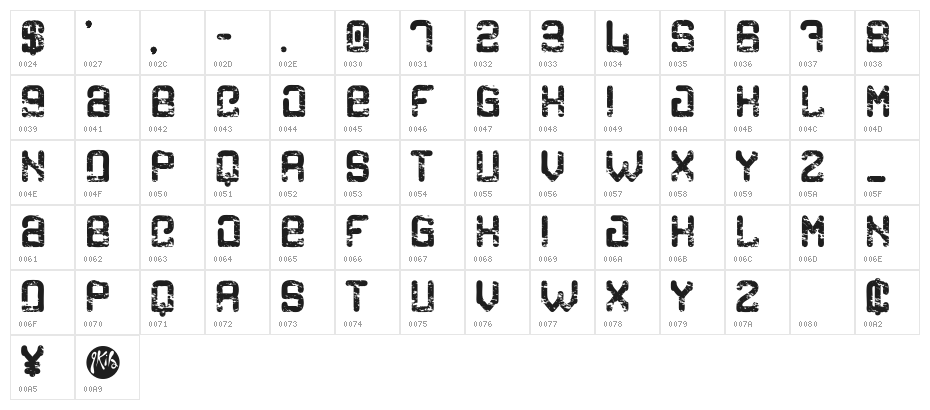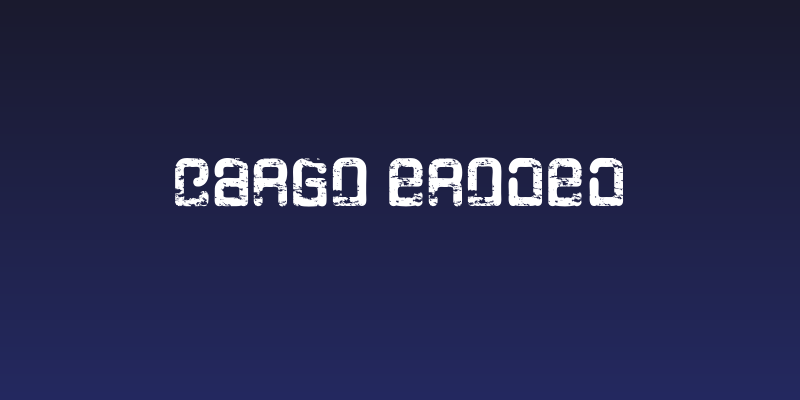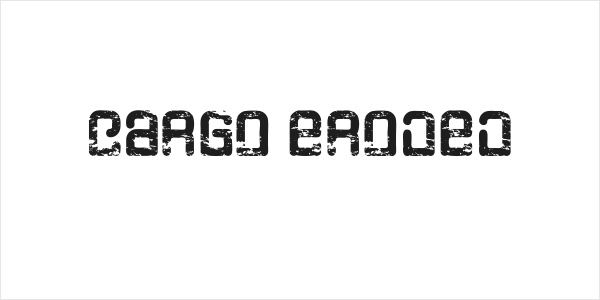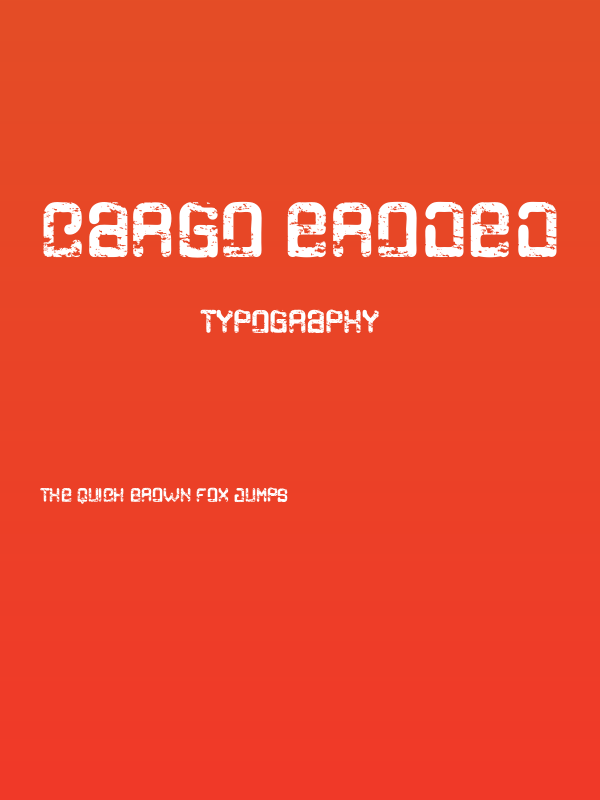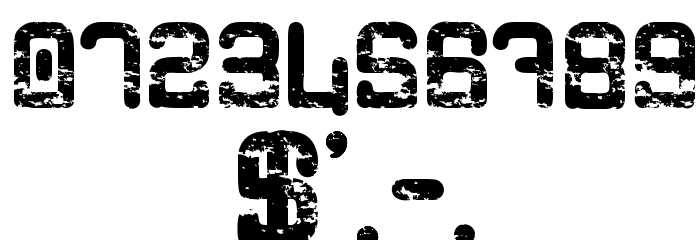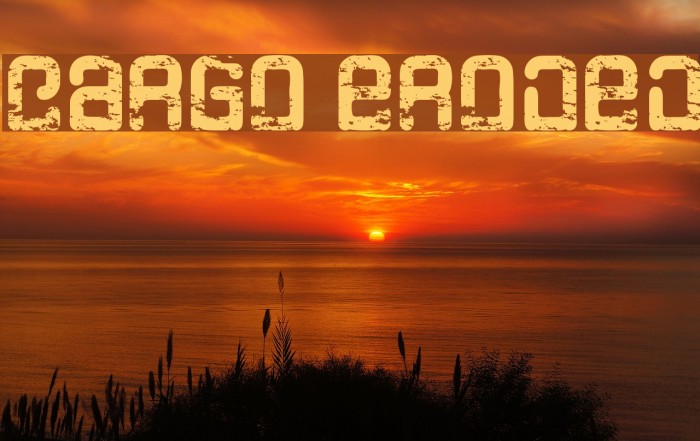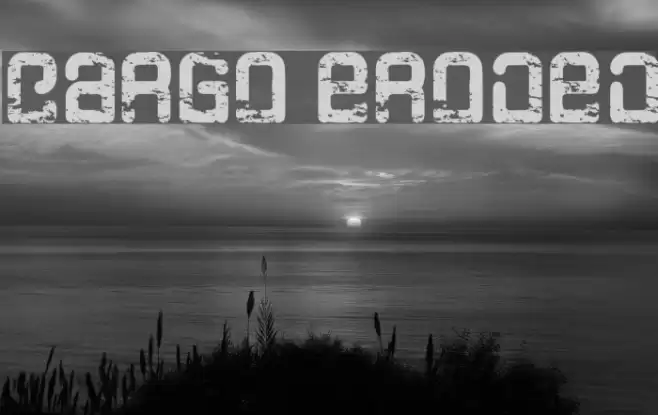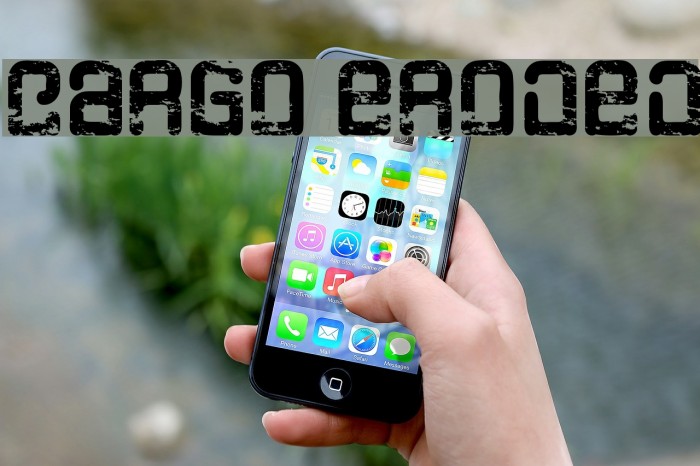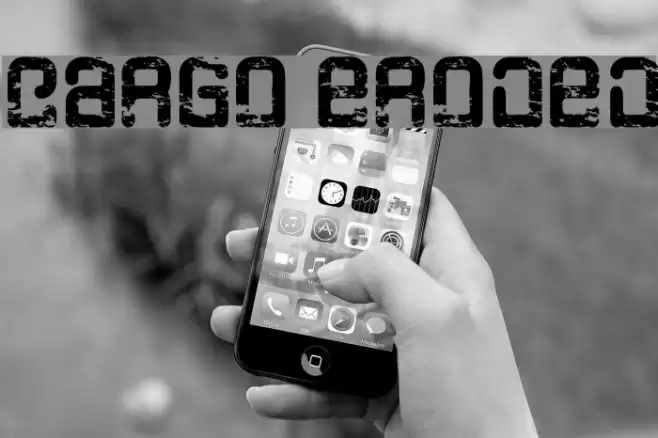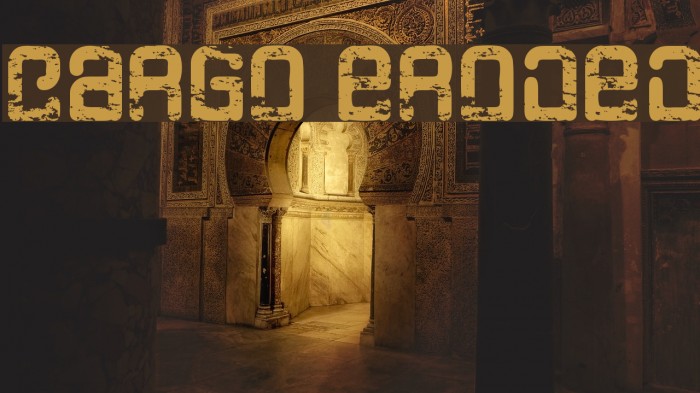
Cargo eroded Font
✎ Distorted Eroded
| Категория | Distorted Eroded |
| Общий стиль | Vintage, Industrial |
| Область применения | Logos, Posters, Packaging |
| Рекомендуемые проекты | Ideal for projects requiring a vintage or industrial theme, such as posters, logos, or packaging for products with a rugged or retro appeal. |